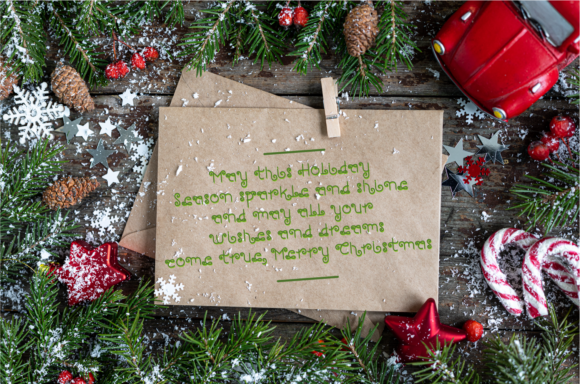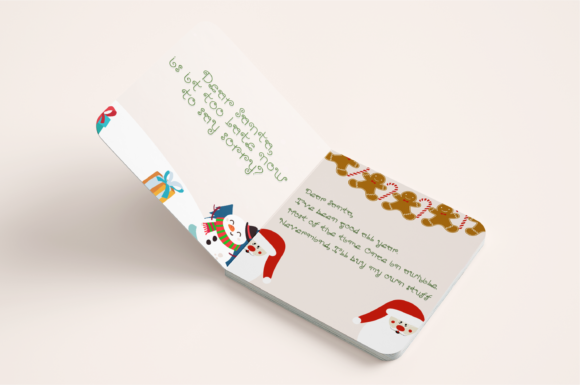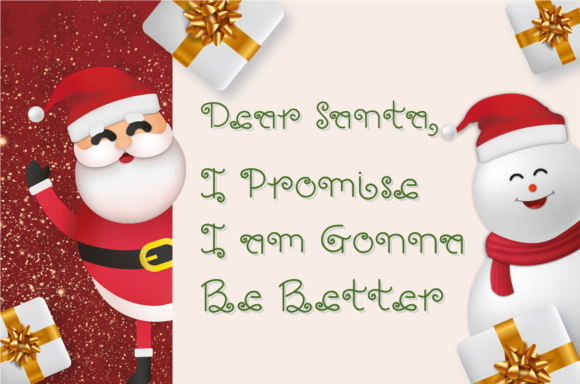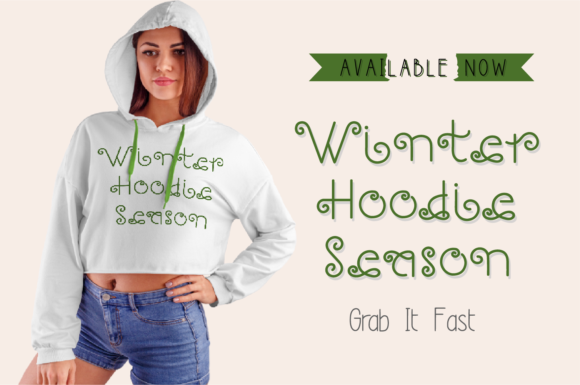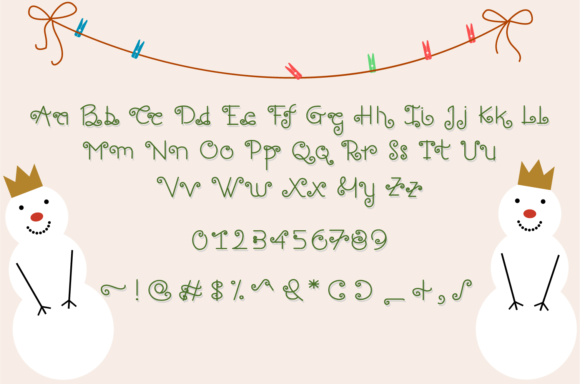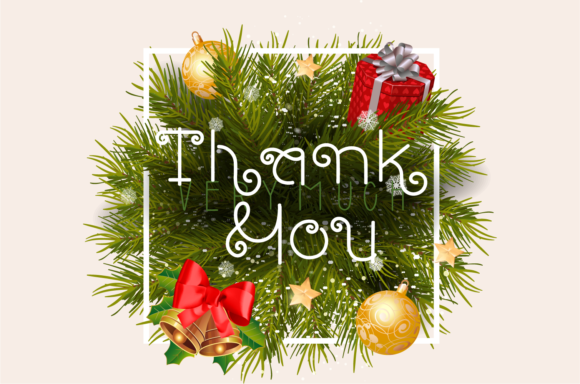
Introduction to Quarantine Christmas Font
It’s that time of the year again when creativity knows no bounds, and our hearts are filled with warmth and joy. As you sit amidst the twinkling lights, sipping hot cocoa, and brainstorming ideas for your holiday cards, you stumble upon the perfect design resource – the Quarantine Christmas Font. This sweet, delicate, and uniquely handwritten font is all you need to add a warm touch to your crafting project.
For designers, finding the right font can be a game-changer. It’s what sets your design apart from the rest and makes it truly special. And that’s exactly what the Quarantine Christmas Font does – it adds a personal touch to your holiday cards, invitations, and even social media posts. With its transparent background, this font is perfect for any creative project that requires a high-quality and elegant look.
Key Features of Quarantine Christmas Font
- High-quality design: The Quarantine Christmas Font is crafted with precision and care, ensuring a professional and polished look for your creative project.
- Unique and creative: The Quarantine Christmas Font is a one-of-a-kind design, perfect for adding a touch of personality to your holiday-themed projects.
Honest Review: Quarantine Christmas Font
As a designer, I’m always on the lookout for unique and creative design resources to elevate my projects. The Quarantine Christmas Font caught my eye with its playful and quirky vibe.
What works well: ✨ The font is highly customizable, allowing me to adjust the size, color, and style to fit my design needs. The characters are also well-designed, with a clear and legible font face.
Some limitations: ⚠️ The font is only available in a few weights, which might limit its use in certain design scenarios. Additionally, the font doesn’t come with a comprehensive user manual or guide, which can make it tricky to use for beginners.
Overall impression: The Quarantine Christmas Font is a fun and creative addition to any design project. While it has some limitations, its high quality and customizability make it a valuable resource for designers looking to add a unique touch to their work.
- Well-designed characters